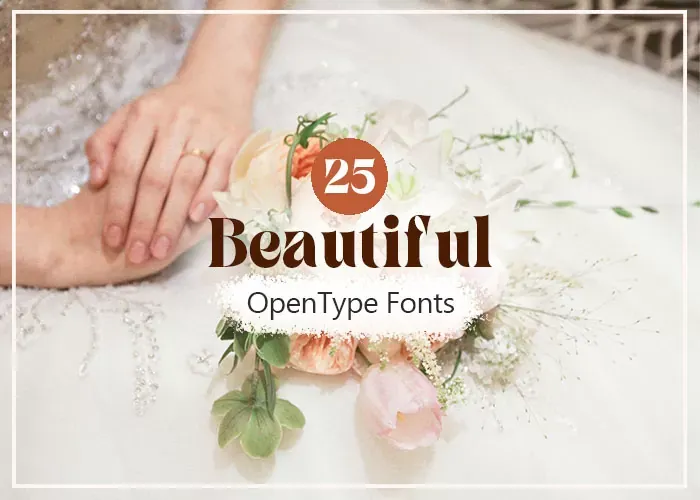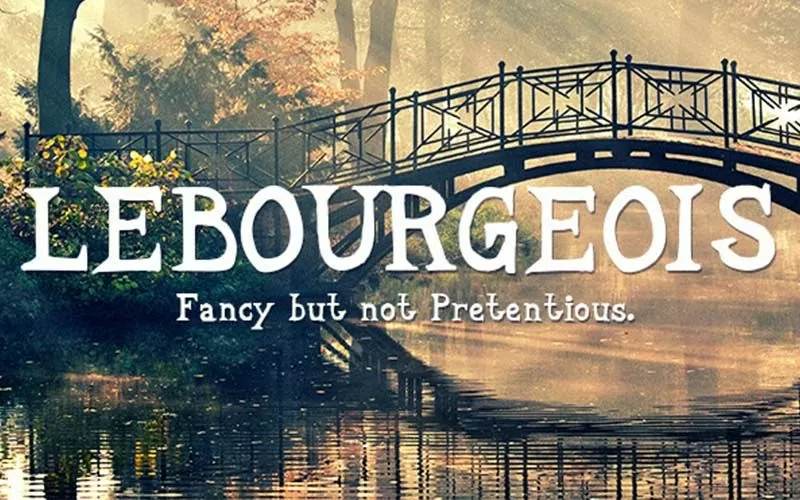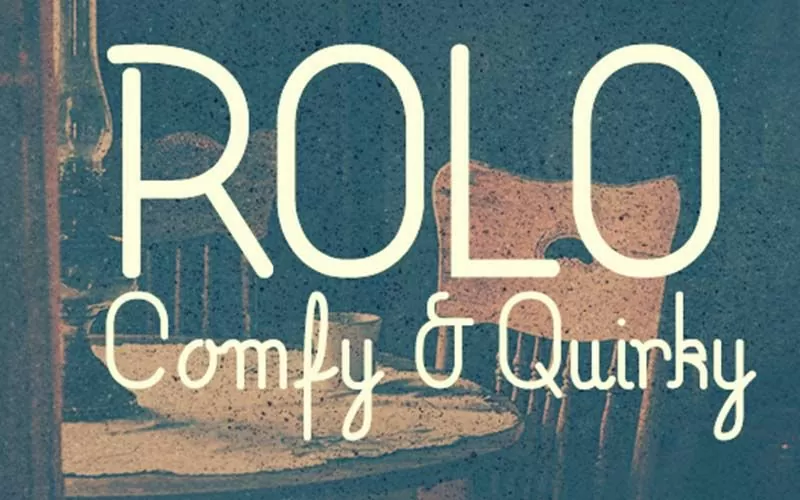
26 Beautiful Opentype Fonts Bundle
Dazzle Your Designs with 26 Unique Open Type Fonts!
Discover 26 captivating Open Type fonts in our must-have Bundle!
Now Say goodbye to font monotony, as these fonts inject glamour and pizzazz into your designs. With Barberino, Adrastia, Amara, Aria, and Arpeggio, your creativity knows no bounds.
But that’s not all—dive into Augustino, Bernice, Carlo Marlo, Classy Pirate, and Cupcake fonts. Explore additional options like Curlee, Dervish, Doodley Extended Version, and Eggplant fonts, each offering a unique touch to your projects.
The beauty lies not only in the abundance but also in the diversity. Many fonts come in multiple styles, providing distinct choices for your creative palette. Spoil yourself with options, and elevate your designs with overlays and graphics.
The 26 Beautiful Open Type Fonts Bundle Includes:
• 11 Handcrafted Fonts
• 4 Bold Fonts
• 3 Laid-Back Font
• 2 Fancy Fonts
• 2 Quirky Fonts
• 4 Retro Fonts
A Sneak Peek Into The Bundle:
Unleash the full potential of your creativity. Experiment with these unique fonts and transform your projects into stunning masterpieces.